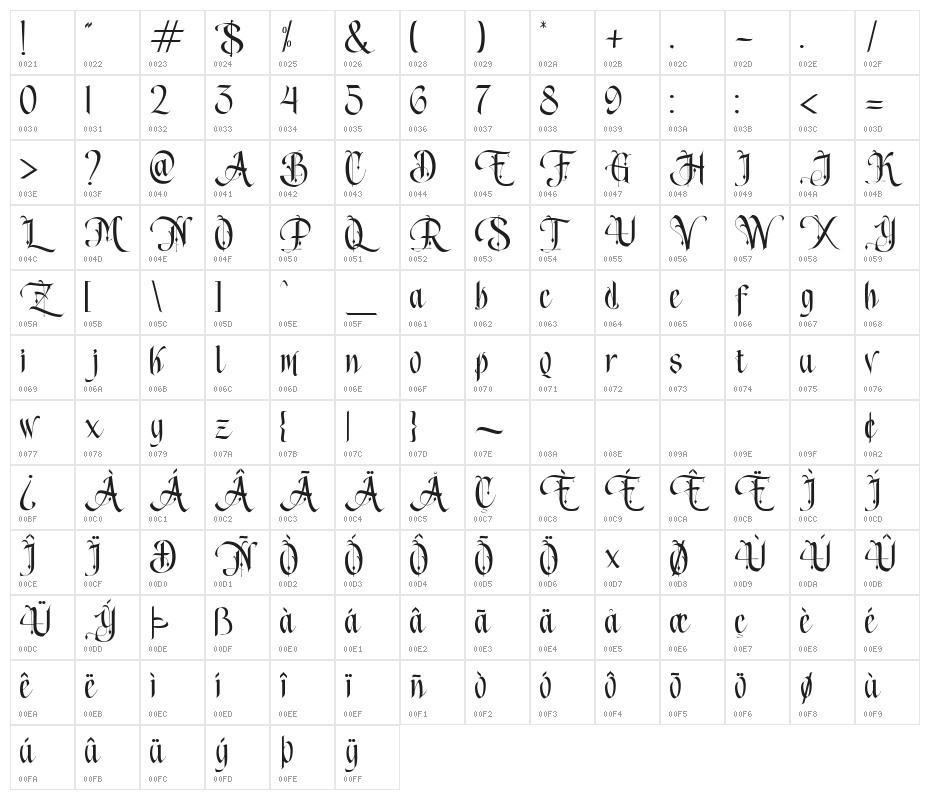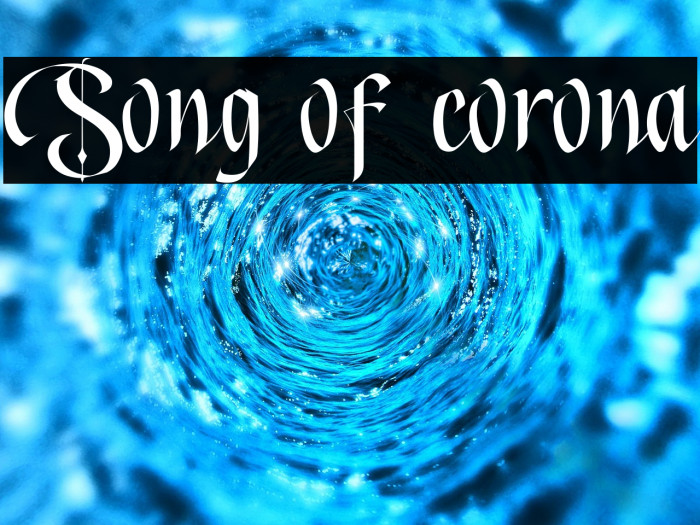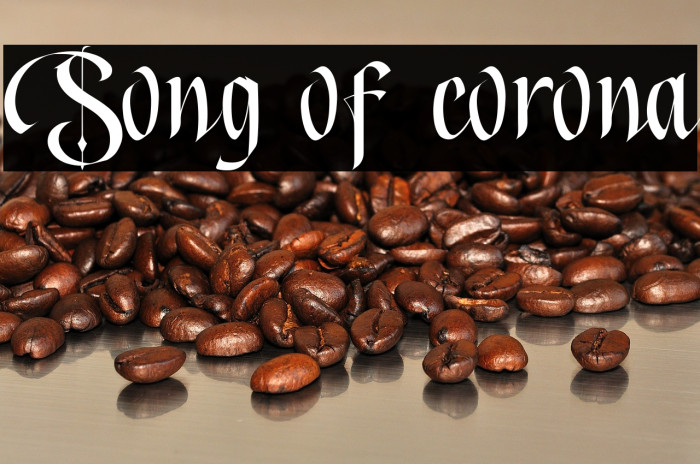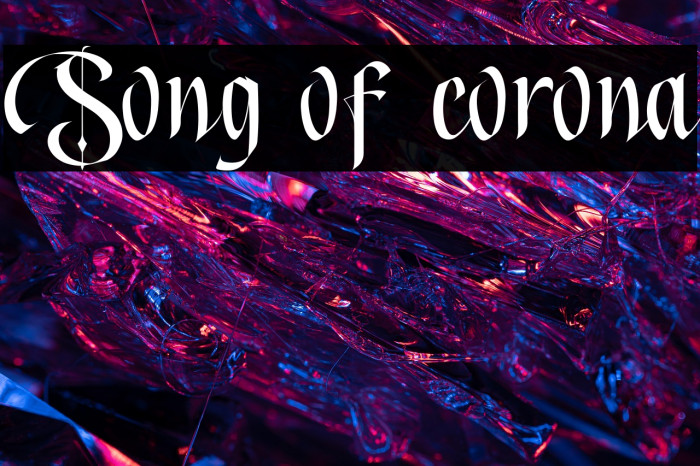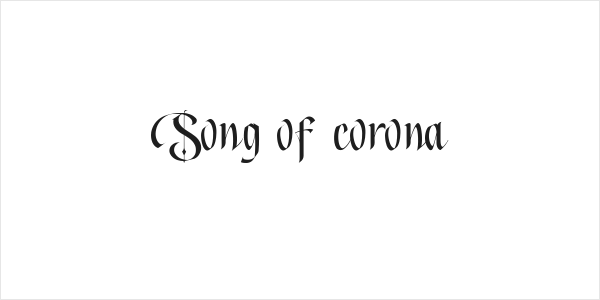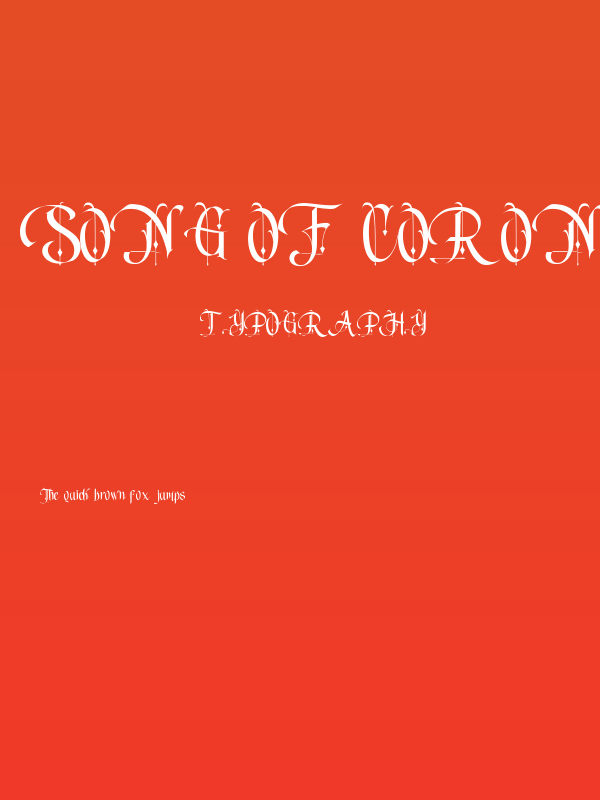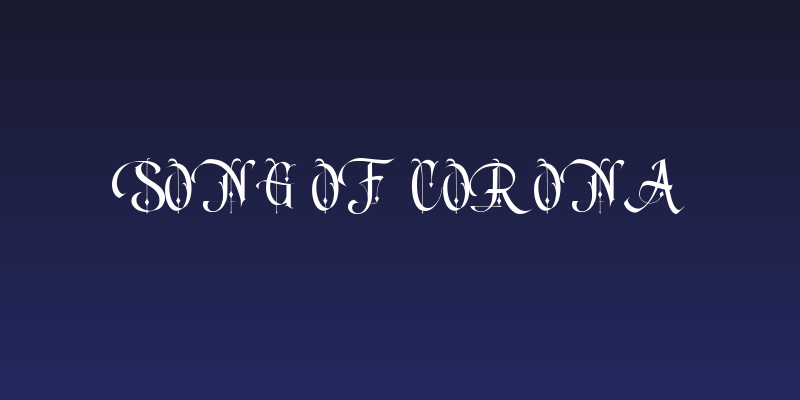
Song of corona Font
Song of corona Description
This font exhibits a dramatic and ornate style, reminiscent of traditional calligraphy with a modern twist. The uppercase letters are characterized by intricate flourishes and sharp, angular strokes, giving them a regal and authoritative appearance. The lowercase letters maintain a similar aesthetic but are slightly more subdued, allowing for readability while retaining elegance. The numbers and special characters are crafted with the same attention to detail, ensuring consistency across the entire typeface. This font's unique style makes it stand out, offering a blend of historical charm and contemporary flair.
| Proposed Projects | Ideal for wedding invitations, luxury branding, certificates, and decorative headings. |